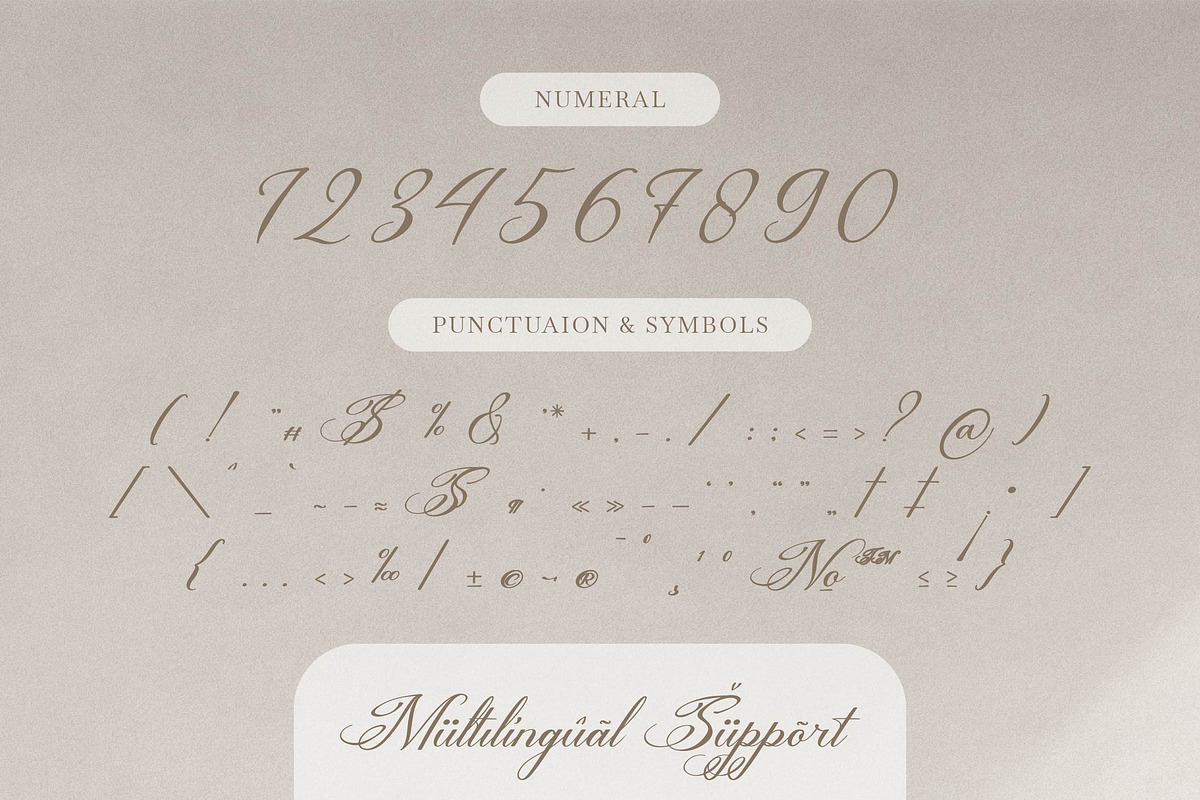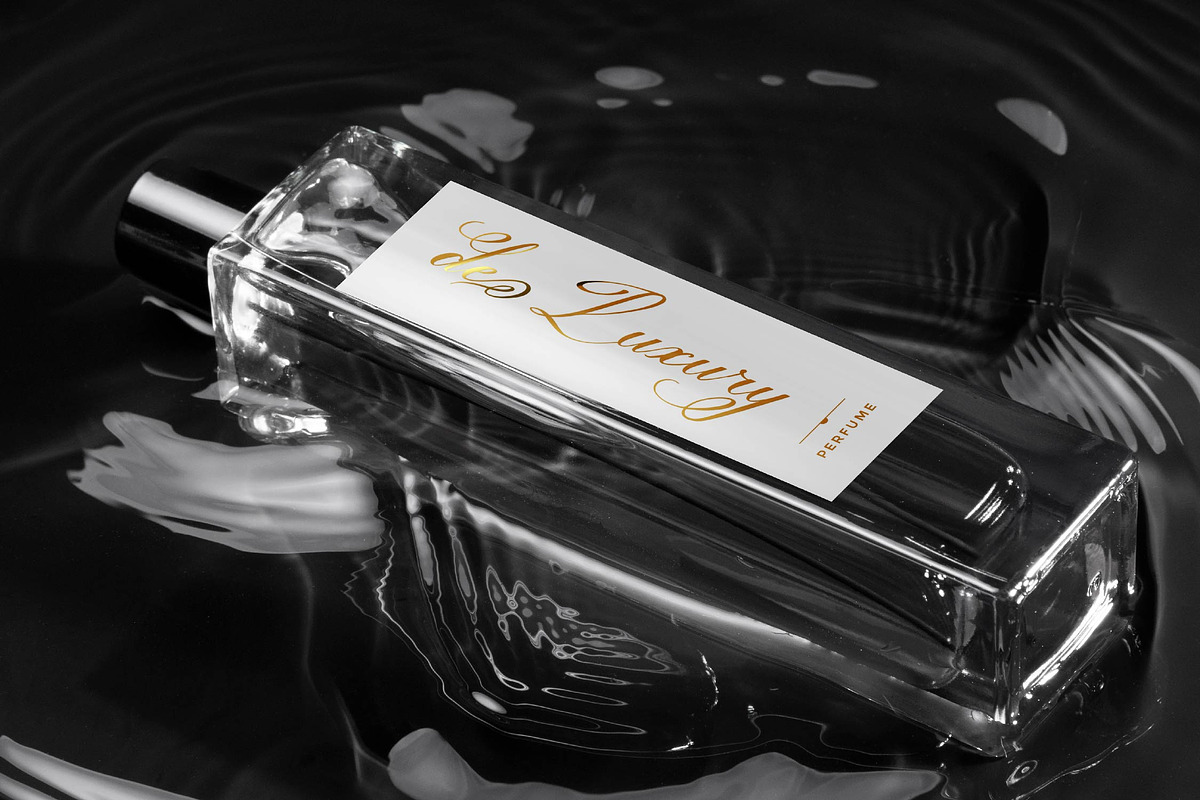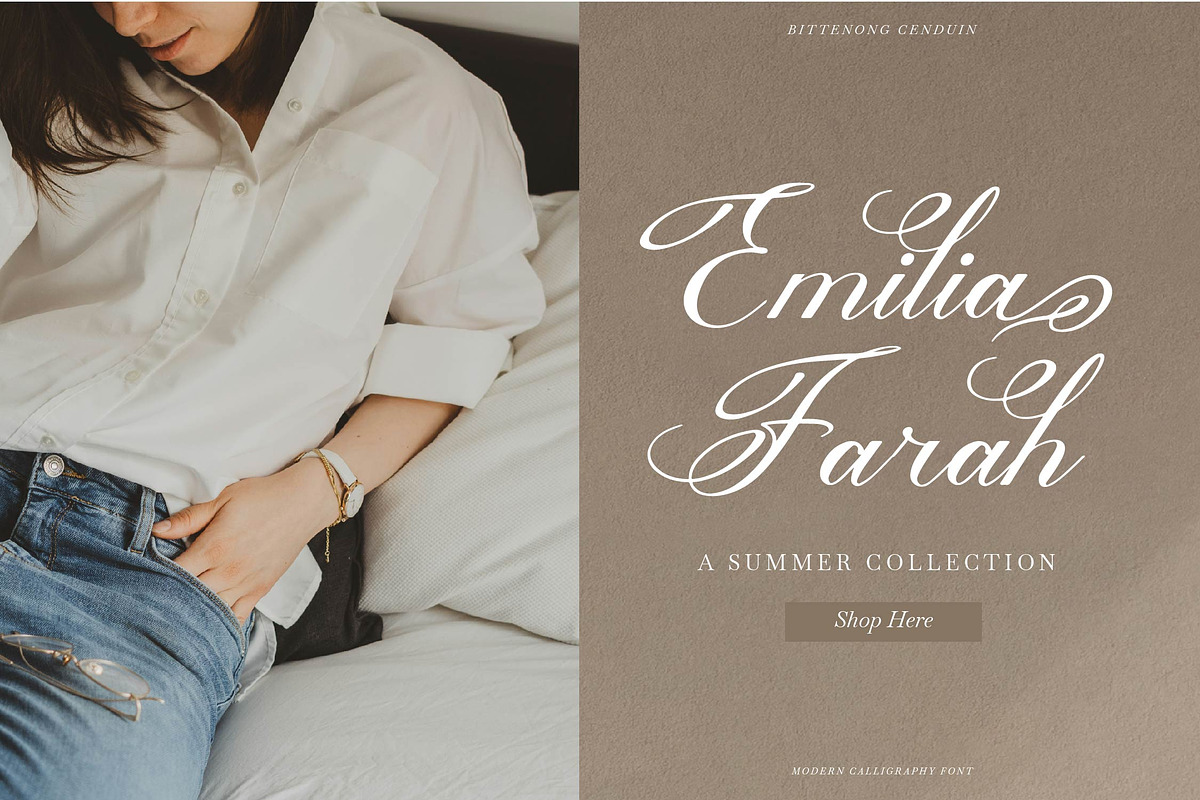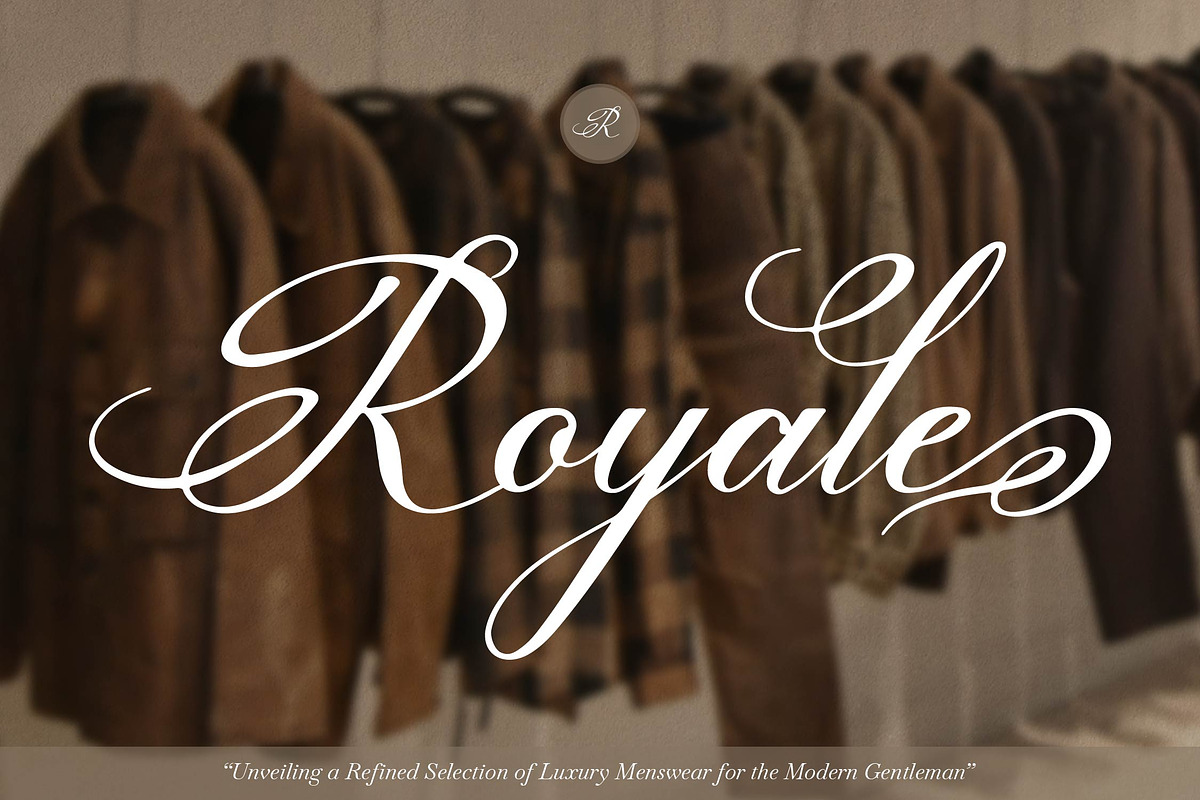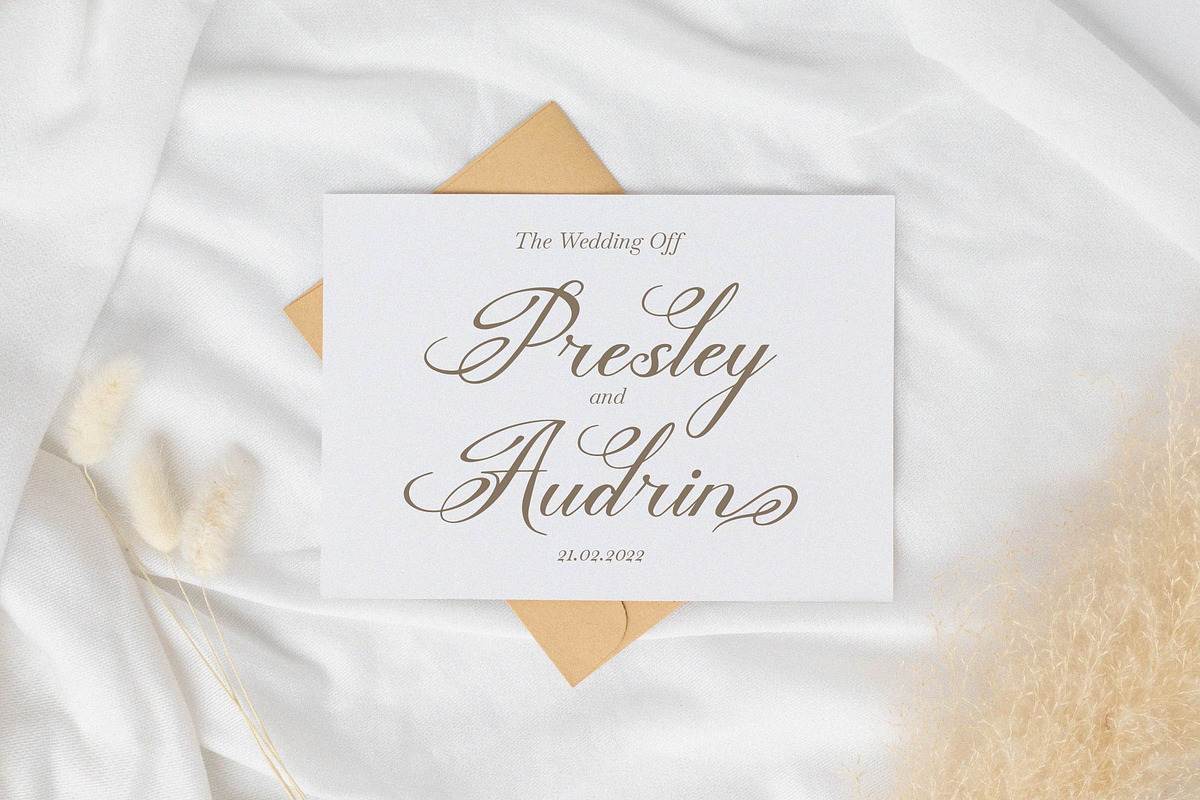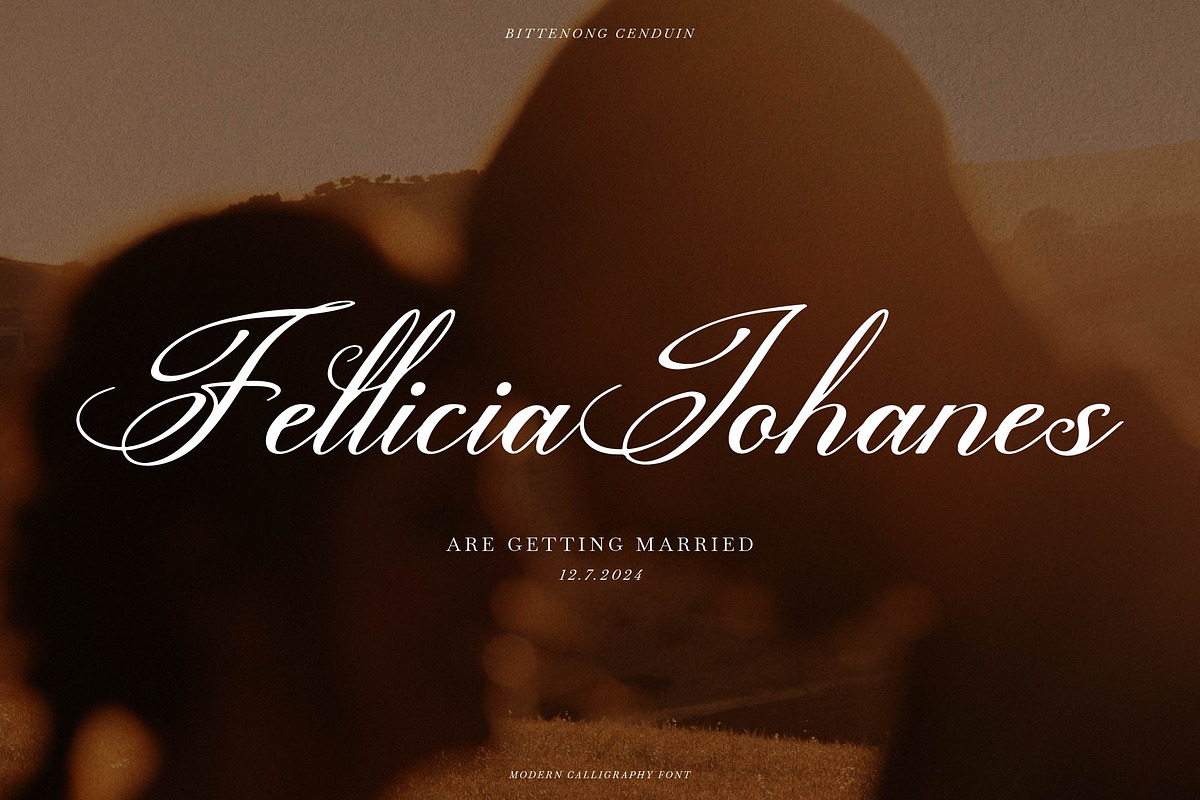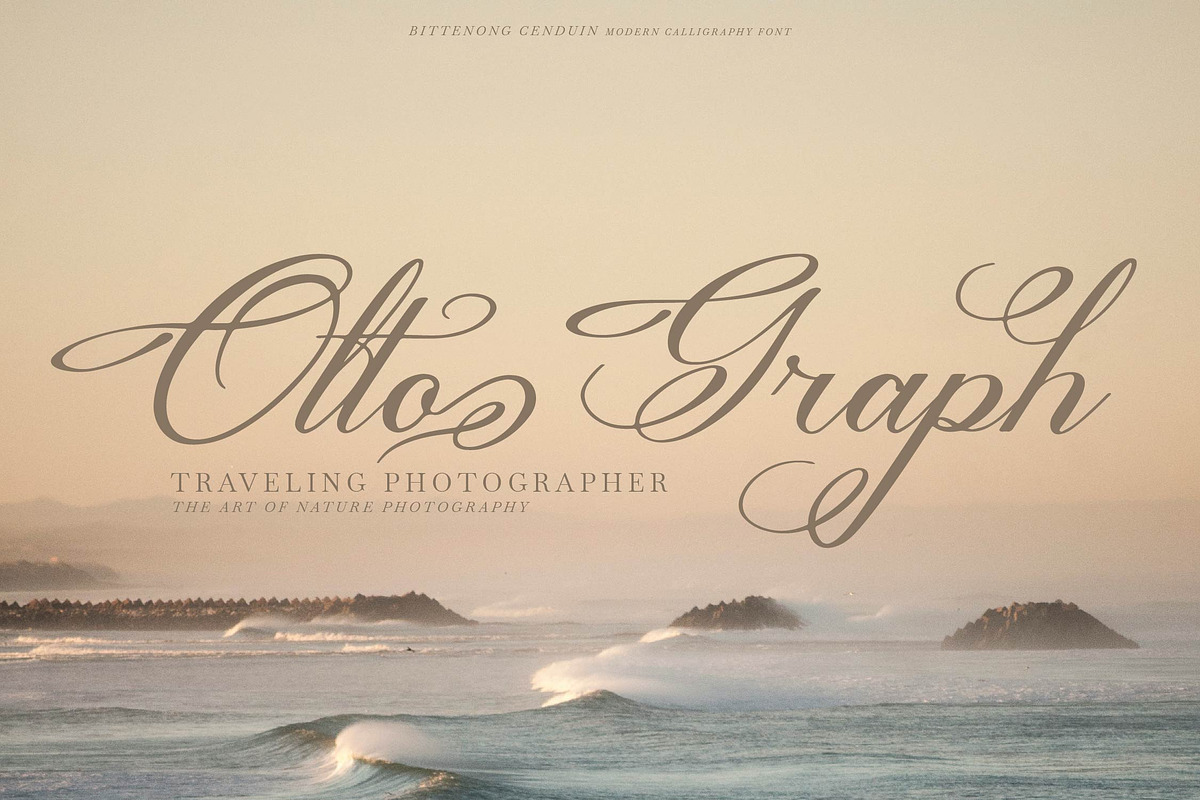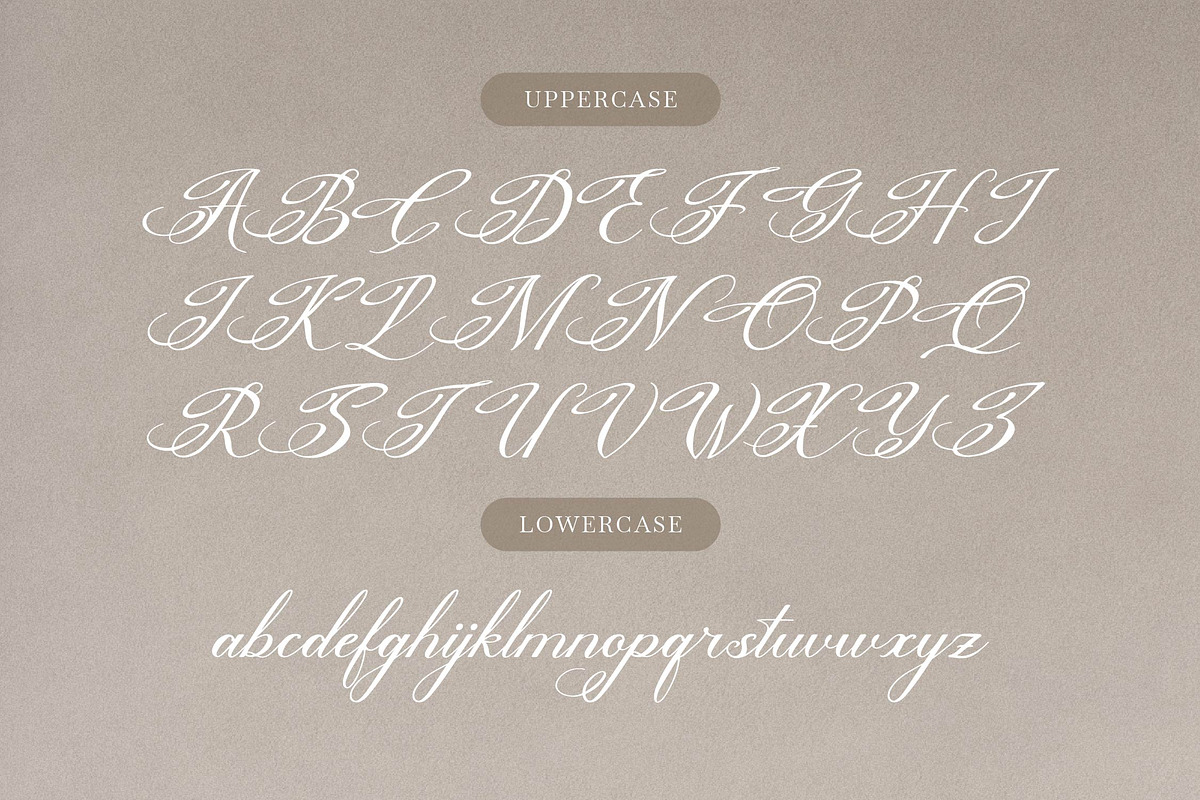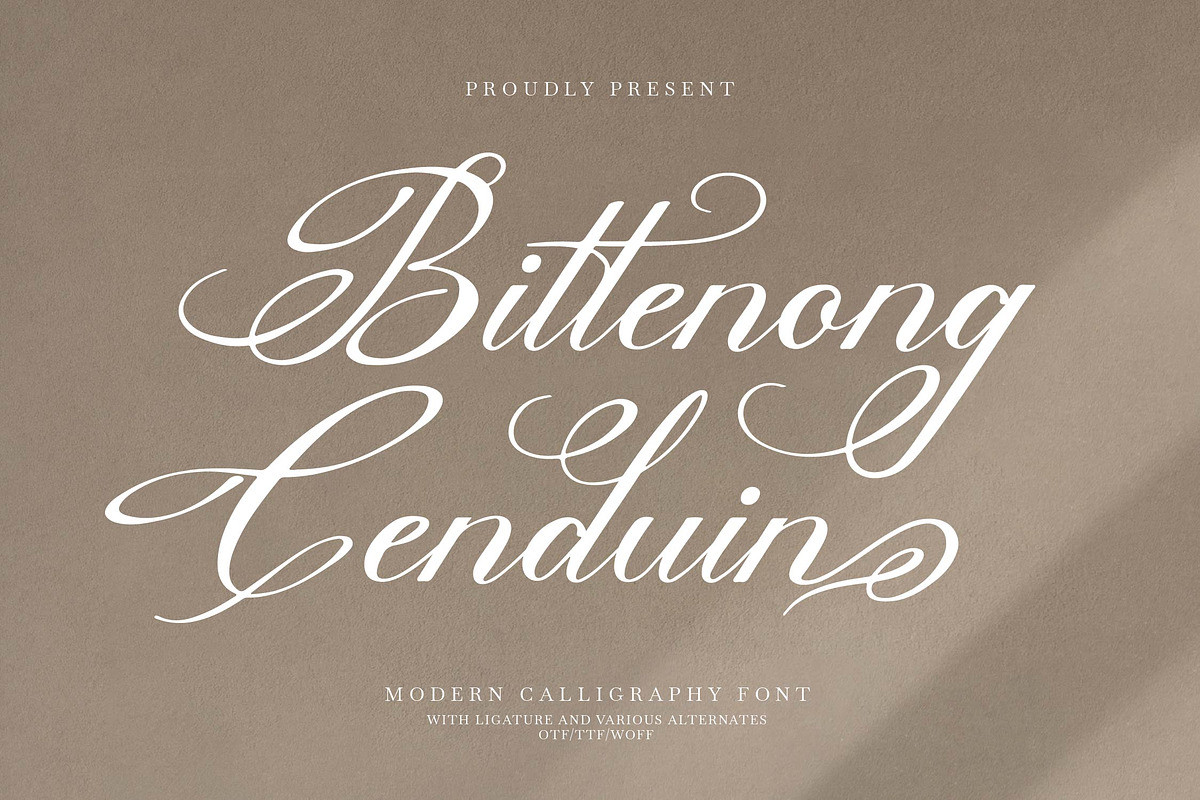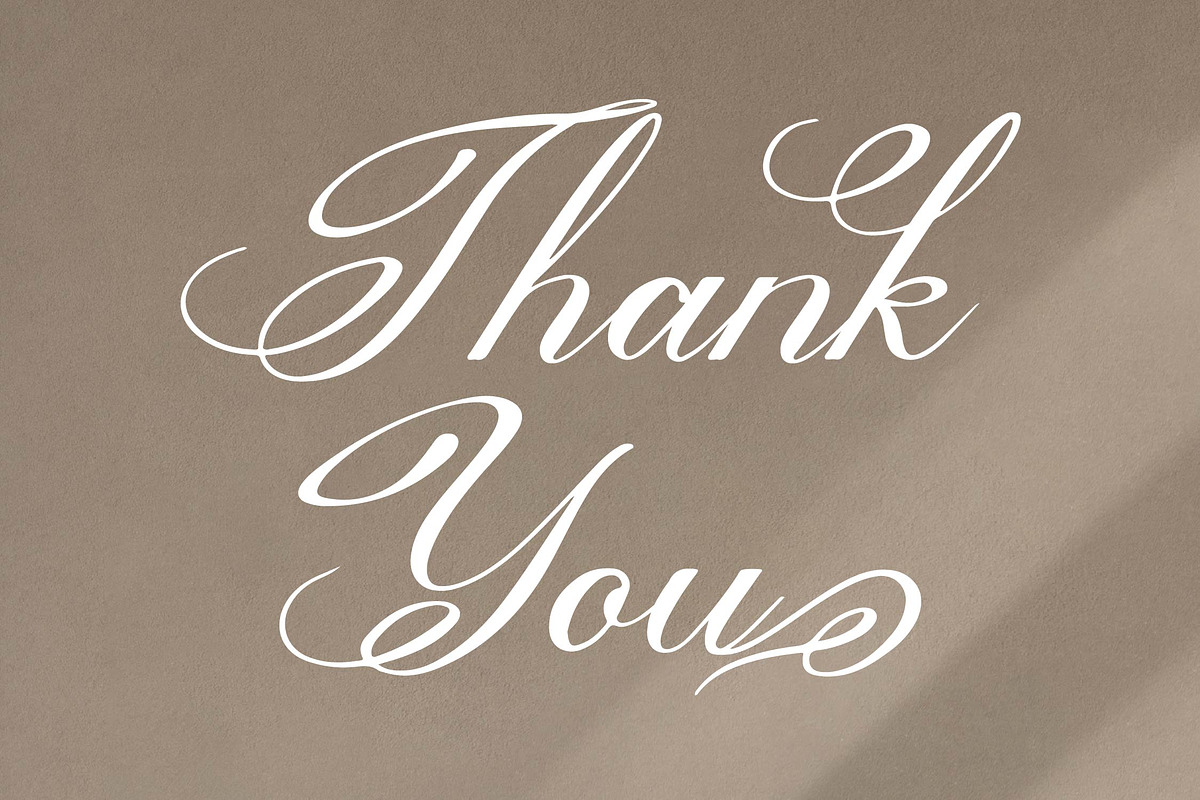
Bittenong Cenduin Modern Calligraphy
Bittenong Cenduin Modern Calligraphy, from Denustudios, suitable for any projects such as: logos, branding projects, homeware designs, product packaging, mugs, quotes, posters, shopping bags, t-shirts, book covers, name card, invitation cards, greeting cards, label, photography, watermark, special events, and all your other lovely projects that need a Modern Calligraphy taste.